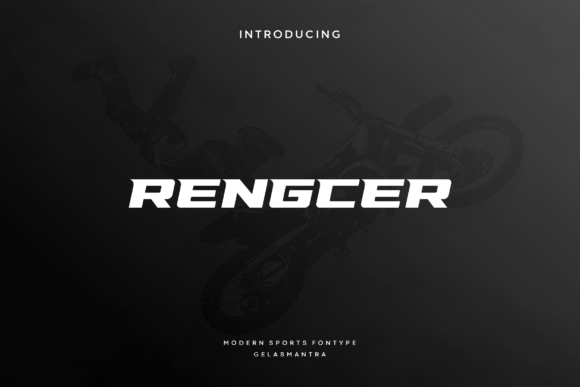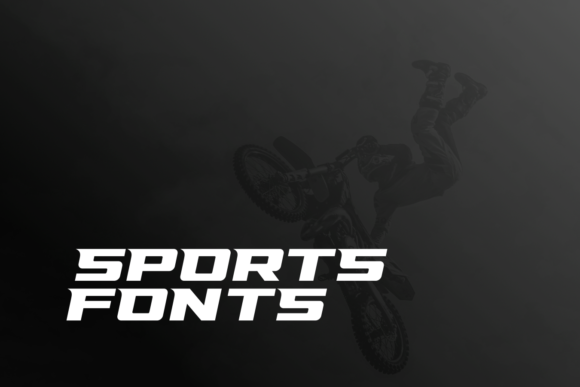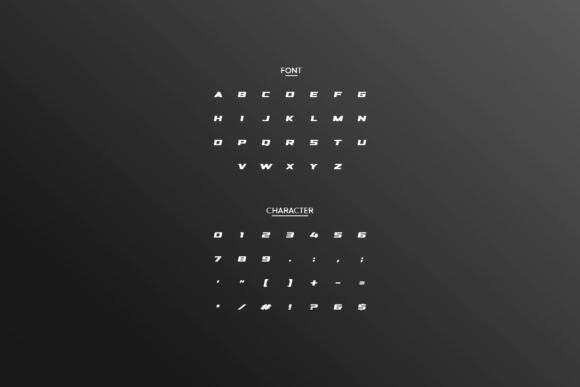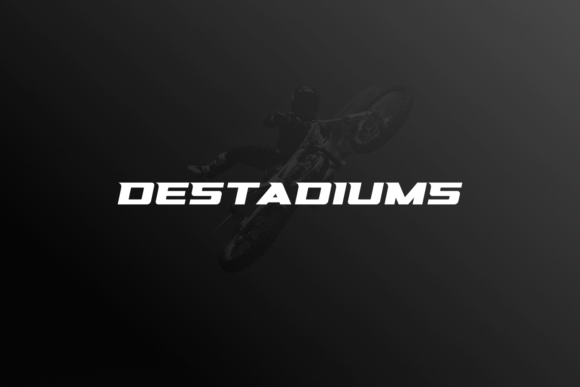
Rengcer
Rengcer: An Awesome Sports Font
Rengcer is an awesome sports font featuring wide italic characters, modern cutouts, and a dynamic slant. It’s ideal for fast car racing sports titles, running matches, cycling, automotive game logos, monograms, or other modern dynamic text. Rengcer stands out with its legibility and size, creating an effect of power and speed.
Key Features of Rengcer
• Dynamic Design: Offers a slanted, energetic look suitable for sports-related applications.
• Wide Italic Characters: Features expanded letterforms for increased impact.
• Modern Cutouts: Incorporates contemporary design elements for a fresh appearance.
• Versatile Application: Ideal for various sports and automotive-themed projects.
Ideal Uses for Rengcer
Rengcer’s unique characteristics make it particularly well-suited for:
When incorporating Rengcer into your designs, consider these tips:
• Use for headlines or short blocks of text to showcase its dynamic style.
• Utilize its wide characters and modern cutouts to enhance visual impact.
Rengcer is an excellent choice for designers looking to add a dynamic and energetic font to their typographic toolkit. Its ability to convey speed and power makes it stand out in the world of sports and automotive design. Whether you’re working on racing event branding, creating layouts for sports magazines, or developing content for automotive games, Rengcer offers the perfect blend of style and functionality.
Furthermore, Rengcer’s unique design allows it to shine in various contexts. From high-speed racing themes to more general sports applications, this font can elevate your projects. Its striking yet functional style works particularly well in designs that require a sense of motion and excitement.
In conclusion, Rengcer is a font that truly captures the essence of speed and dynamism in typography. Its ability to work well in both digital and print media showcases its versatility. For those looking to add a touch of adrenaline to their work, Rengcer can enhance sports-themed creations with its distinctive style. It’s the perfect choice for designers seeking to make a bold, energetic impact across a wide range of sports and automotive projects.